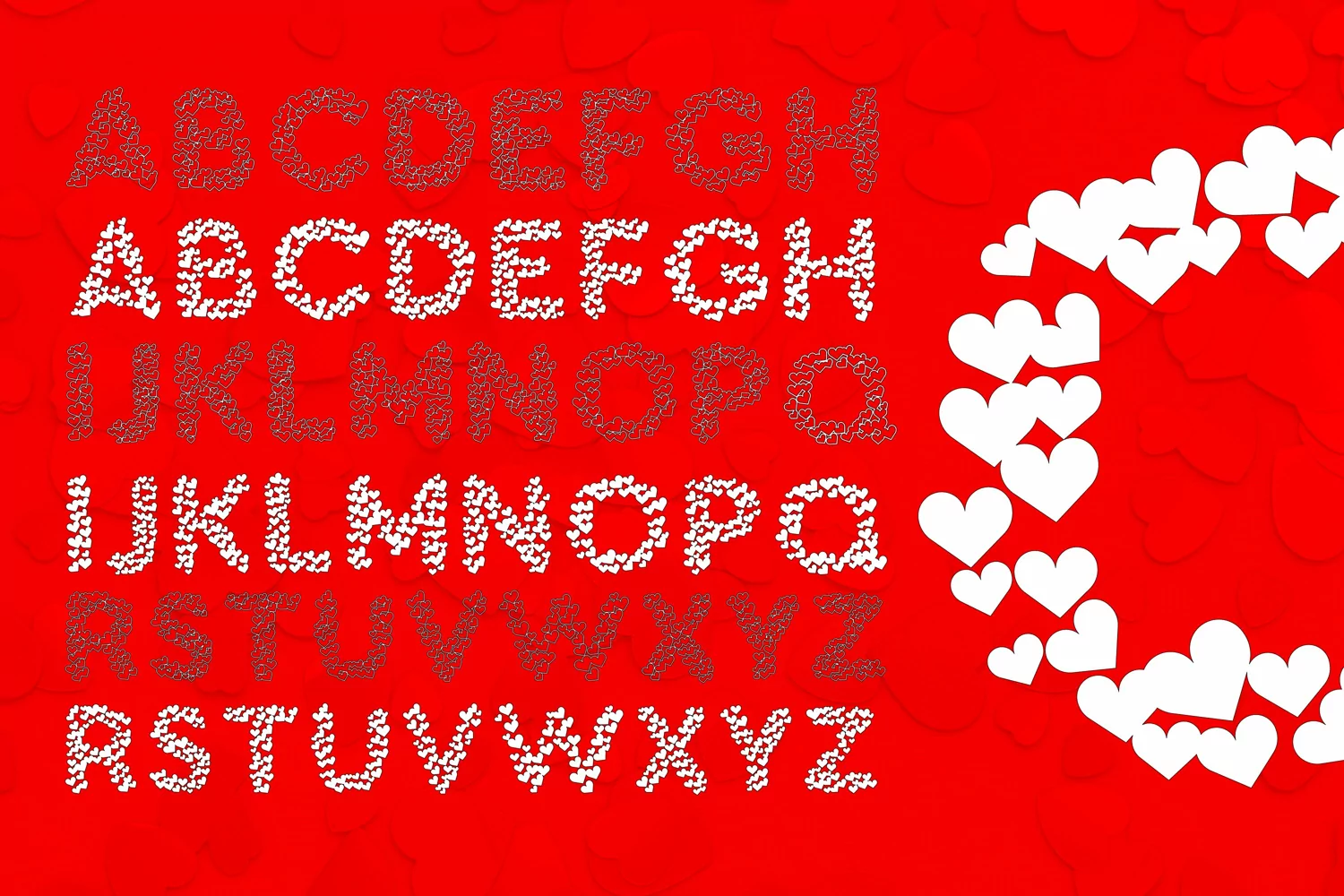
Love In Hearts - A Valentine Day Font
Presenting Cute font for you. This Special Paper Cut Hearts Font can be used in tons of projects specially in child and new born projects. You can use it for craft purpose and this will looks great on shirts, printing material and other stuff.
2- UPPER Case only Letters A to Z 2x Style
3- Super Cute and Creative